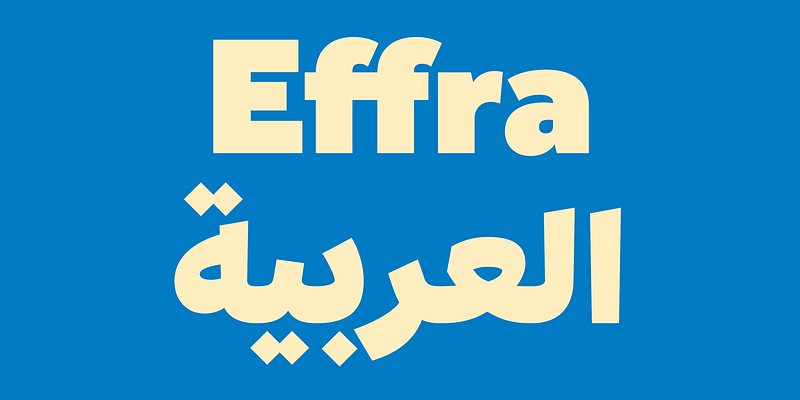
Effra CC Arabic Font Free Download is a contemporary Arabic typeface designed to harmonize with the modern, geometric style of the Effra Latin family. Clean, balanced, and highly legible, this font is ideal for bilingual branding, digital interfaces, editorial design, signage, and corporate communications where consistency between Arabic and Latin scripts is essential.
The Effra CC Arabic Font respects traditional Arabic calligraphy while integrating minimalist, modern design principles. It maintains fluidity and readability across sizes, making it perfect for both display and text use in professional, global-facing projects.